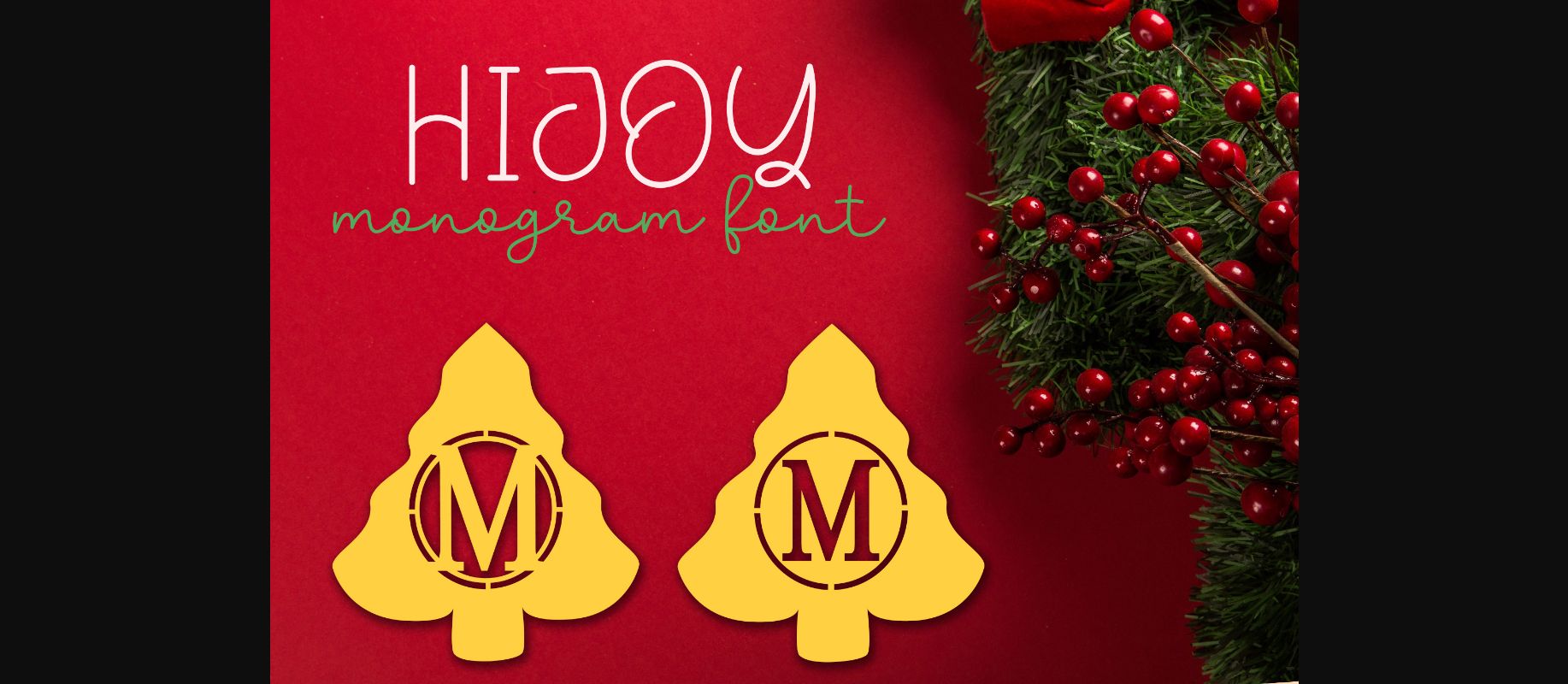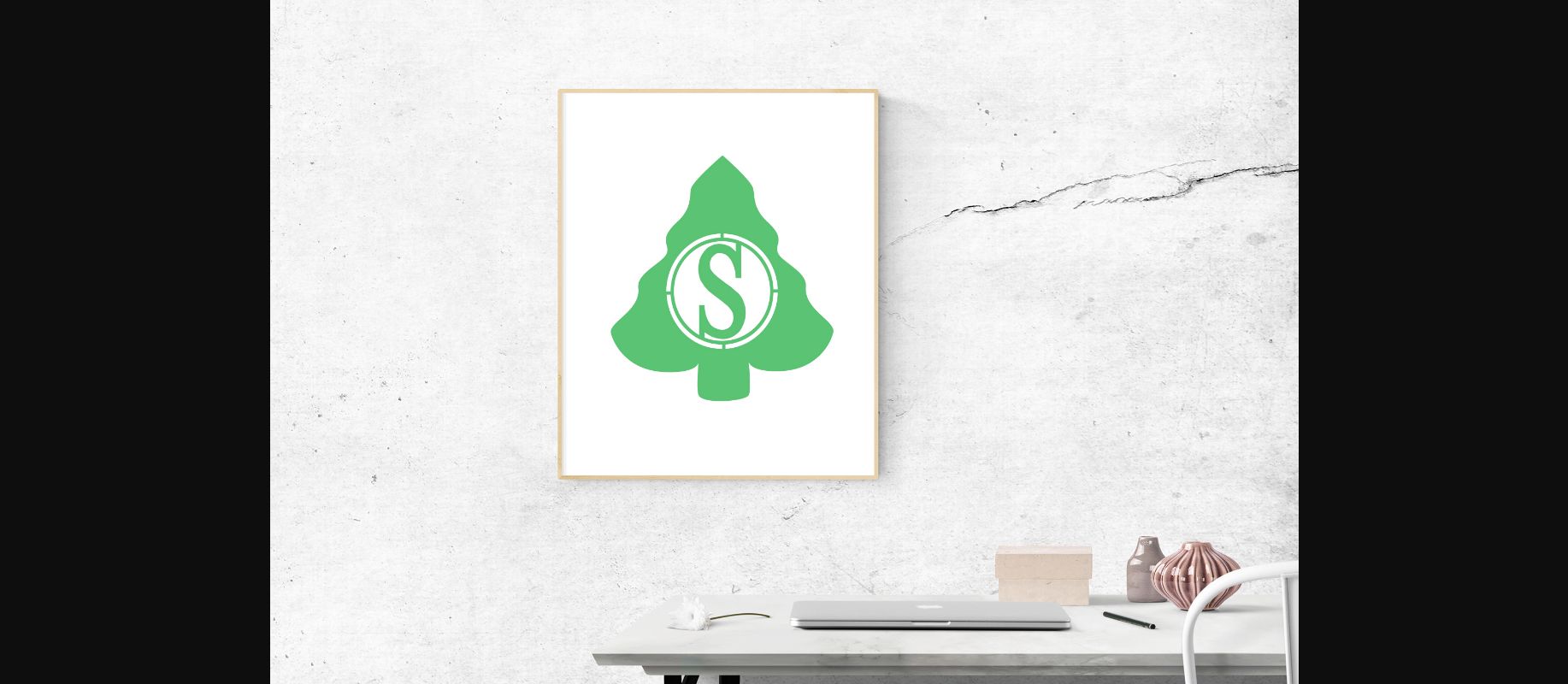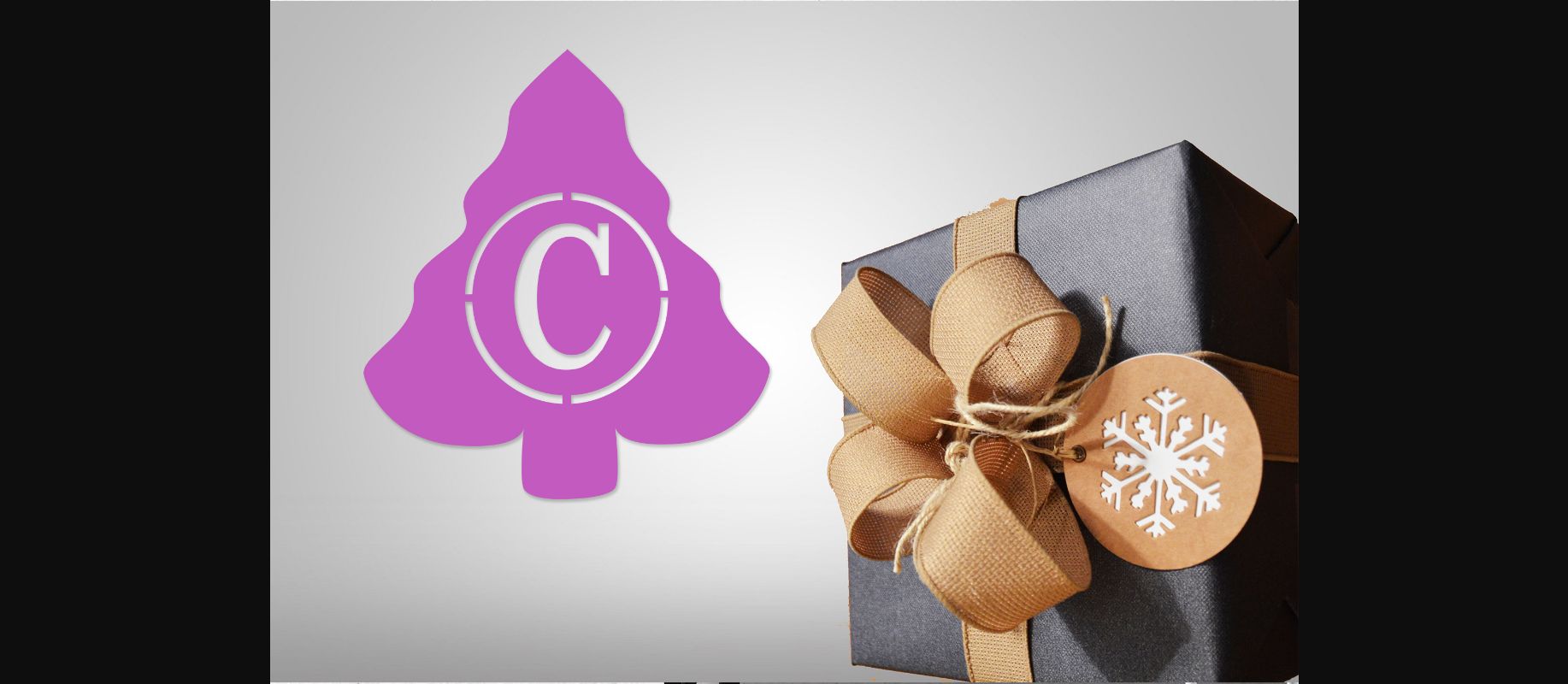
About Hijoy Font
With its Christmas Tree silhouette, Hijoy feels incredibly festive and joyful, which makes it the perfect decorative monogram font for all of your Christmas crafts! Use it to turn any design project into a true standout.